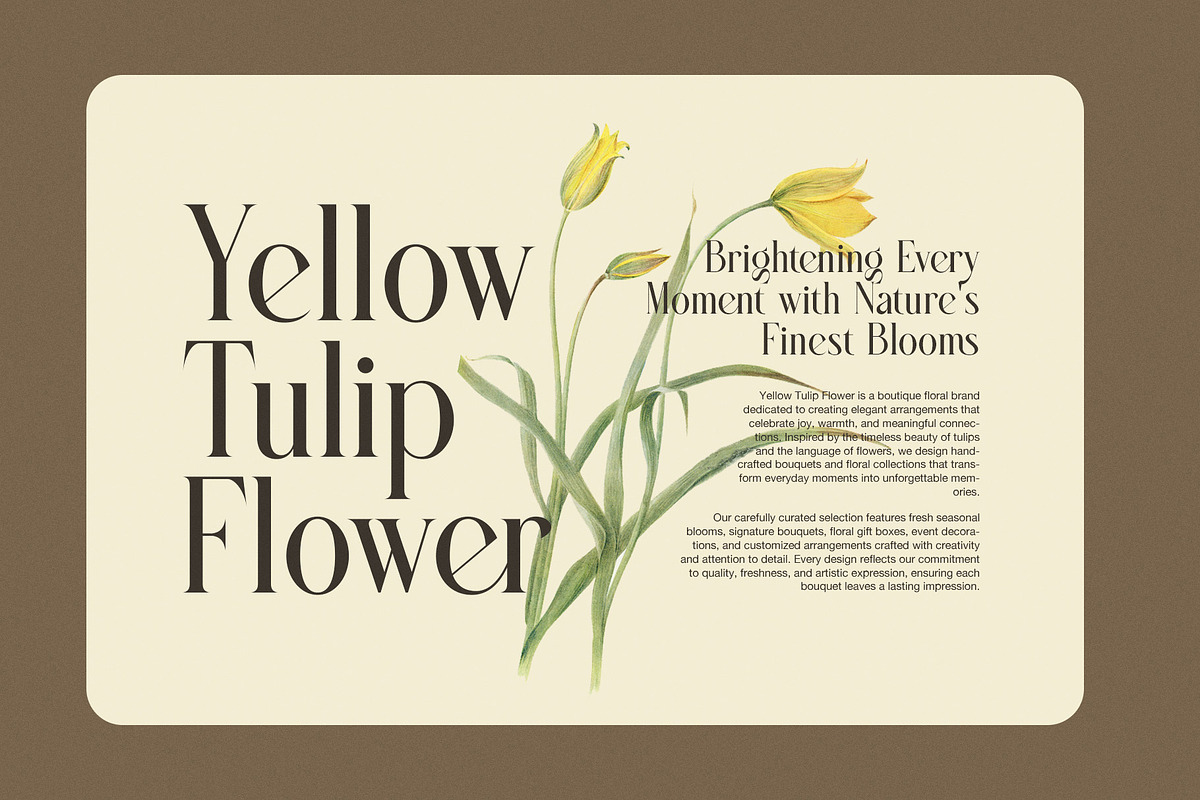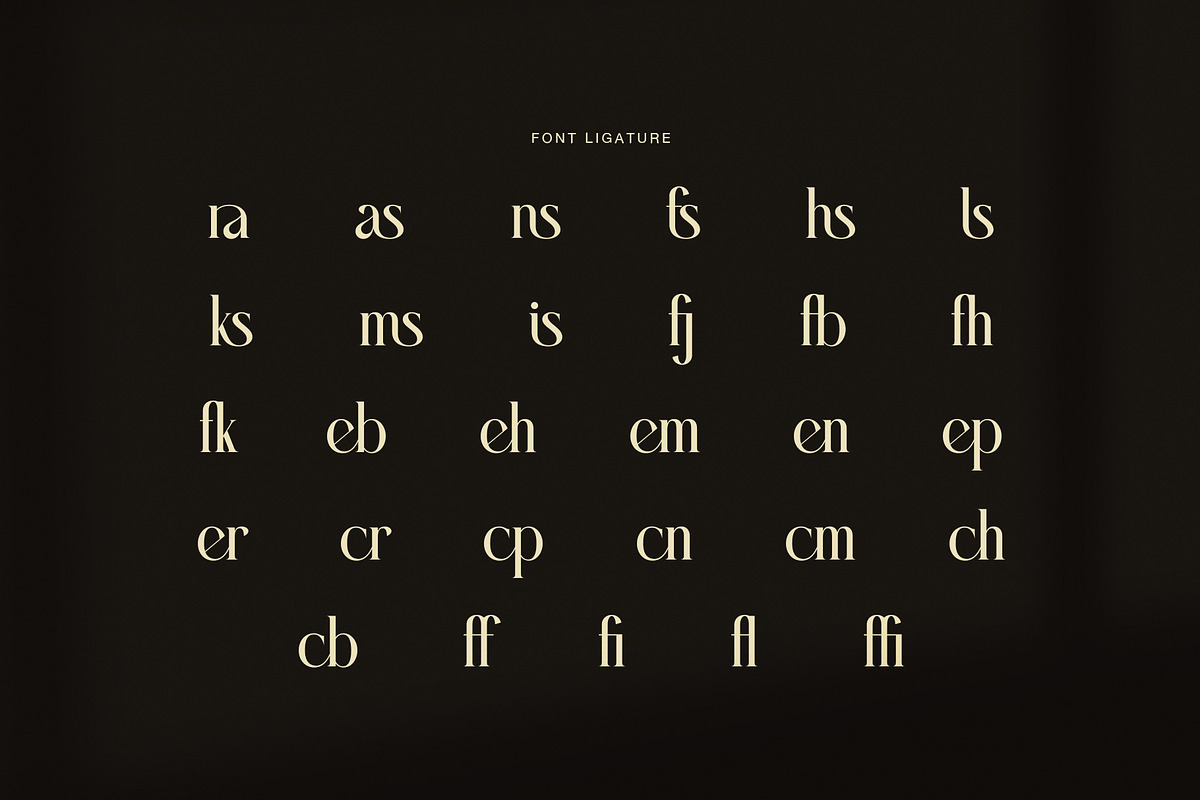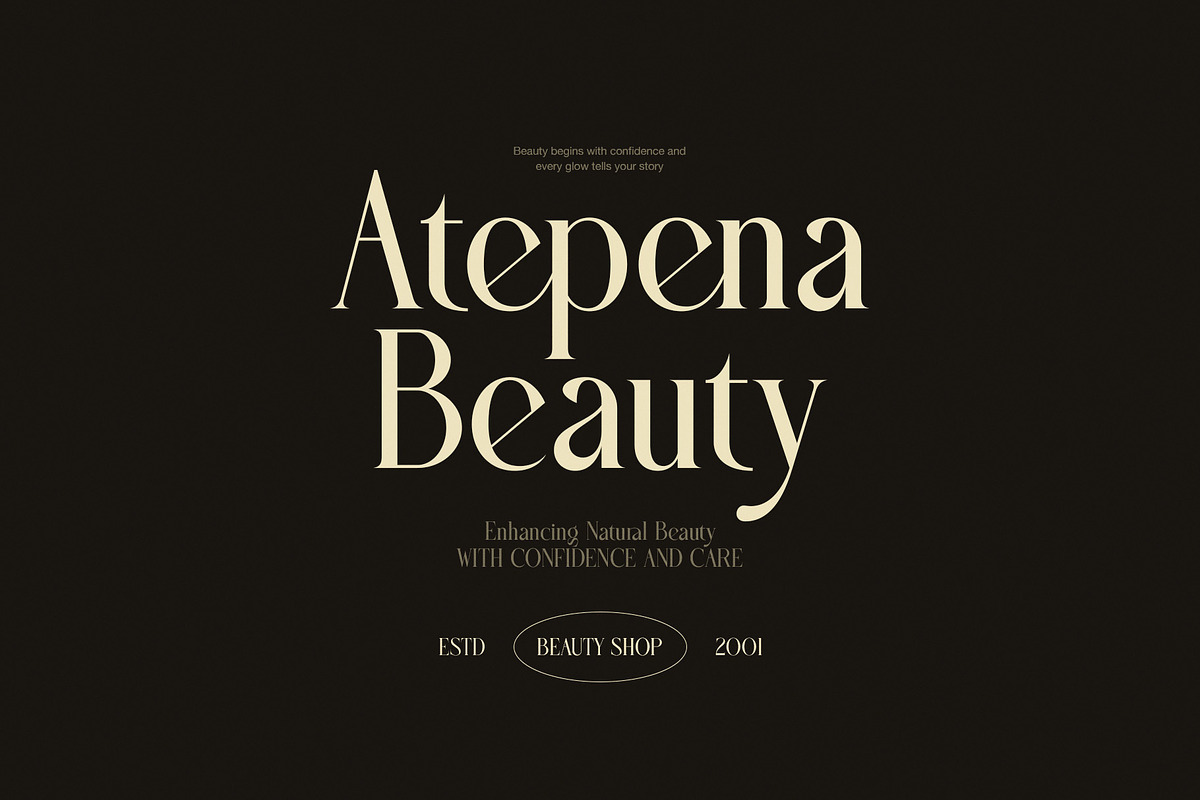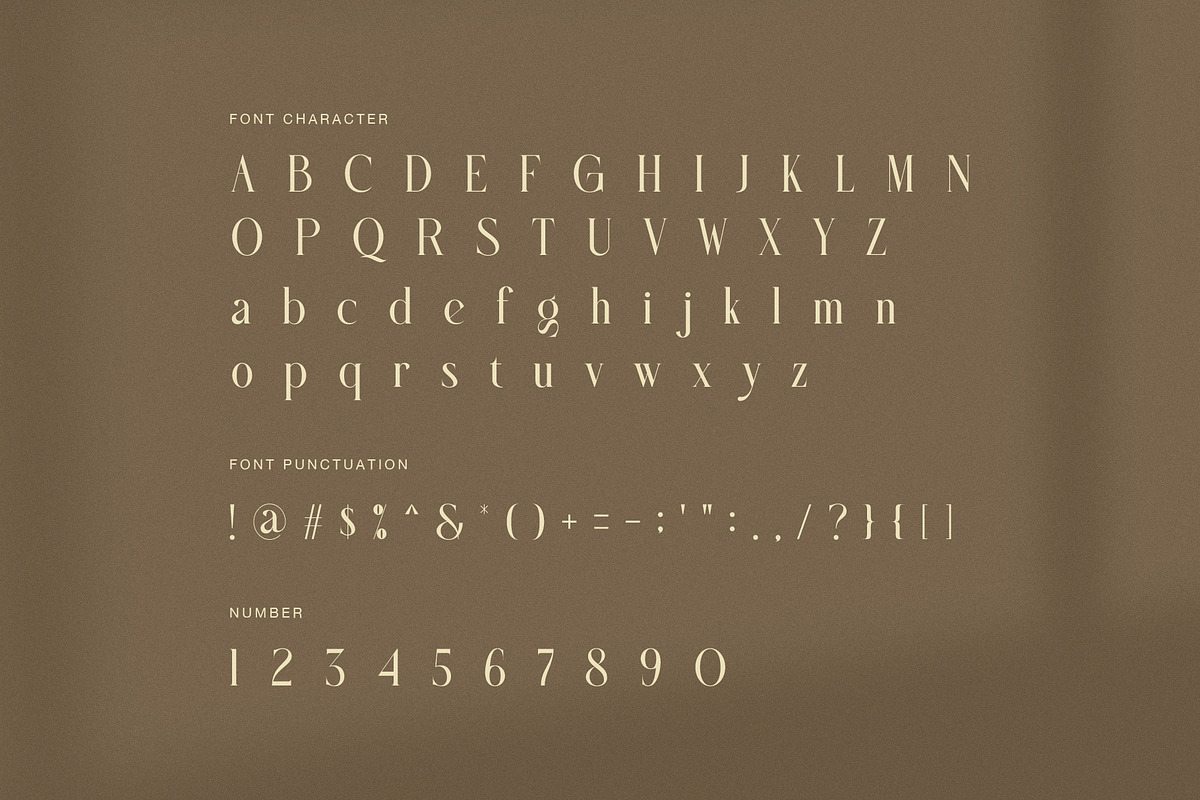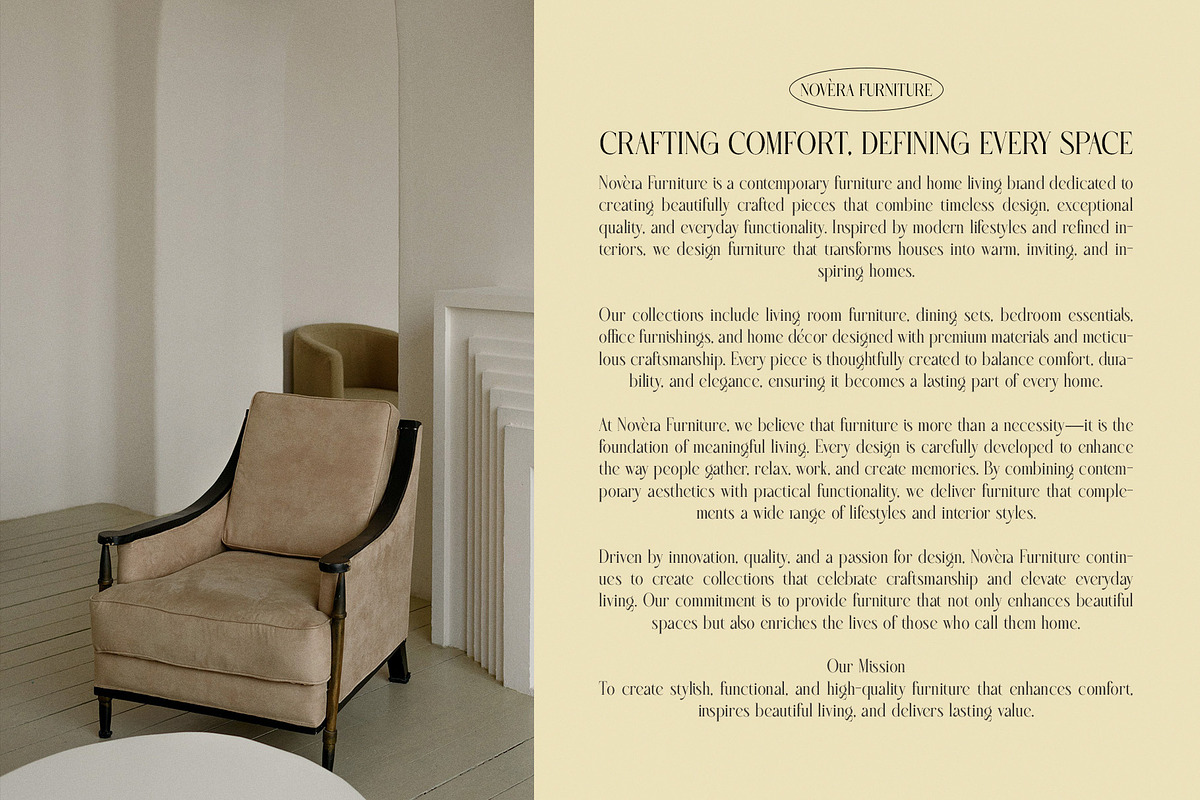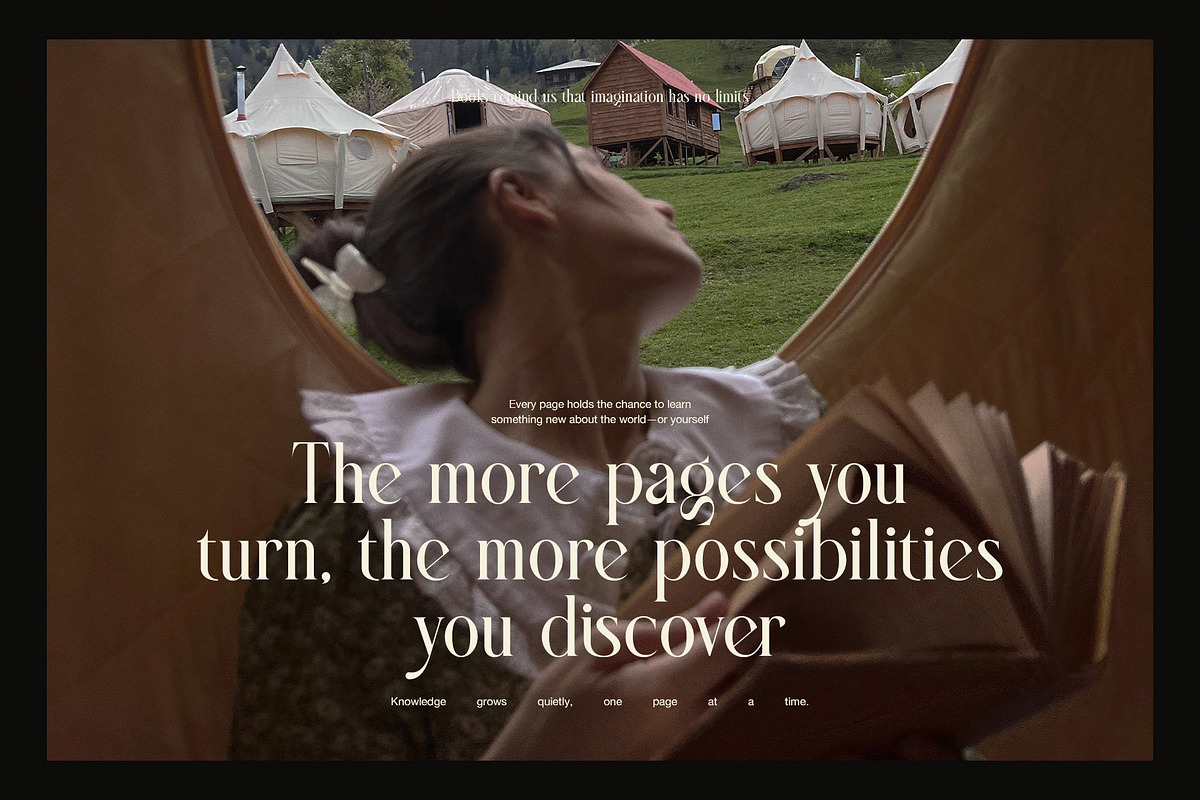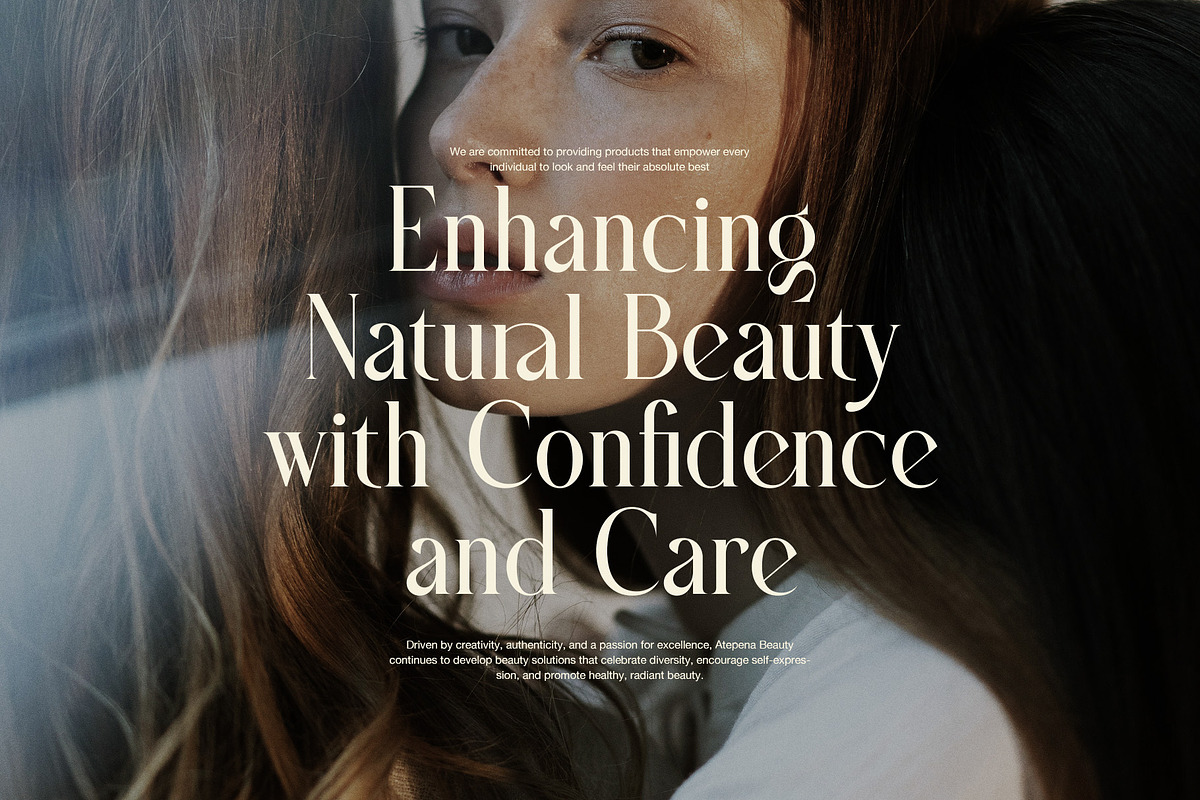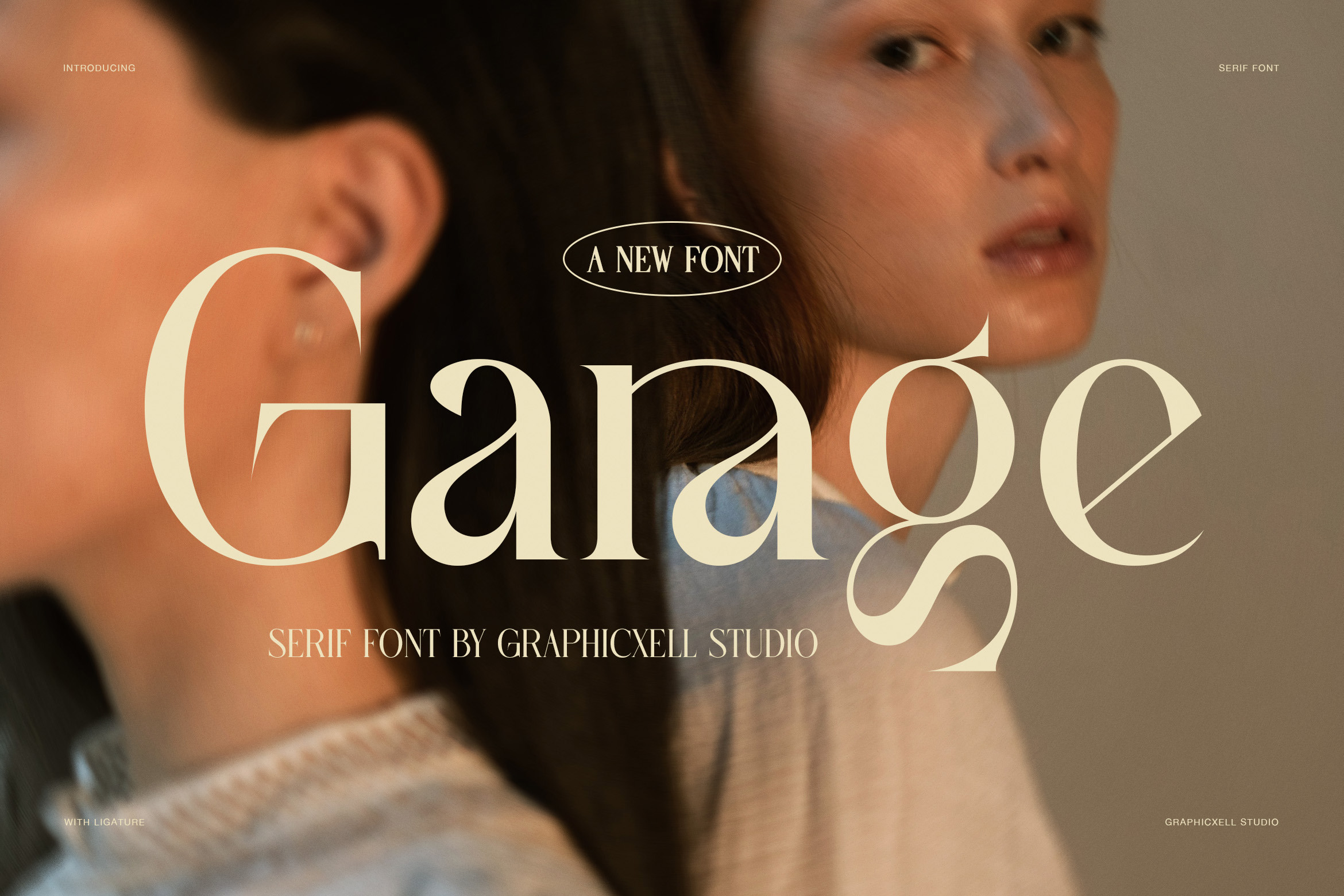
Garage Fashion Editorial Serif Font
Garage is a stylish fashion serif font designed for creative projects that need a refined, bold, and editorial look. With dramatic contrast between thick strokes and delicate hairlines, this typeface creates an elegant presence while keeping each letter visually distinctive.
The design blends classic serif forms with modern details. In particular, its sharp terminals, graceful curves, and unusual cuts give the characters a fresh personality. As a result, Garage feels luxurious without looking overly traditional. It is especially effective when used at large sizes, where its fine details and strong shapes can stand out.
Garage is an excellent choice for:
Fashion and beauty branding
Luxury logo design
Magazine covers and editorials
Beauty campaigns
Product packaging
Wedding invitations
Boutique identities
Posters and headlines
Album covers
Social media designs
Moreover, Garage offers a strong balance between elegance and visual impact. Its uppercase characters create a confident and sophisticated mood, while the lowercase letters bring a smoother and more expressive flow. Therefore, designers can use the font for both powerful headlines and stylish supporting text.
Another key advantage is its extensive ligature selection. Garage includes many custom letter combinations that transform common pairs into more connected and artistic forms. These ligatures can add a personal touch to logos, headlines, names, and editorial layouts. Consequently, designers have more freedom to create typography that feels carefully crafted.
The font also includes numbers and punctuation, making it practical for a wide range of creative work. Furthermore, its clean structure allows it to pair well with simple sans serif fonts. This creates a useful contrast between expressive display text and clear supporting information.
For a premium result, Garage works beautifully with spacious layouts, neutral colors, elegant photography, and luxury-inspired compositions. Likewise, it can add a dramatic touch to darker designs or create a softer mood when combined with warm tones.
Because of its distinctive letter shapes, Garage is particularly suited to fashion labels, cosmetics, lifestyle brands, creative studios, wedding stationery, and modern editorial projects. In addition, its expressive forms make it useful for posters, campaigns, packaging, websites, and social media graphics.
Overall, Garage is a versatile high-contrast serif font that brings together classic elegance and contemporary style. Whether you are building a luxury identity or designing an eye-catching headline, Garage helps your typography feel polished, memorable, and fashion-forward.